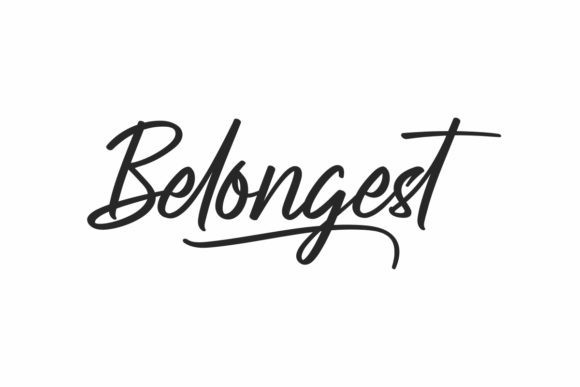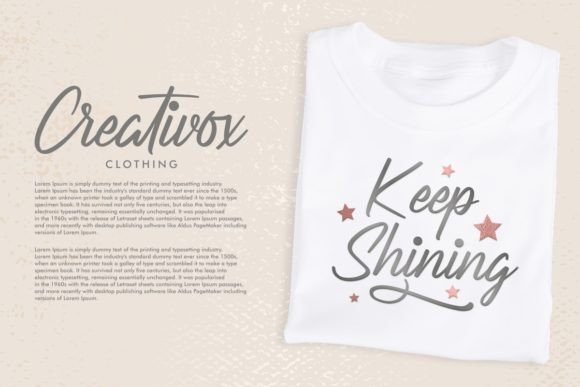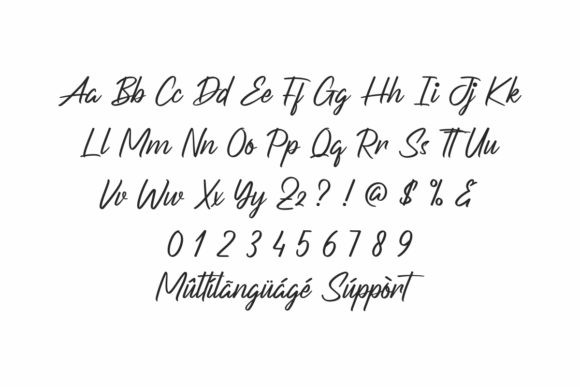
Belongest Font
Belongest is a graceful and dazzling handwritten font. It is the ideal option for creating eye catching logos, branding and quotes. Every letter has a unique and all round touch, which will make your design come alive!